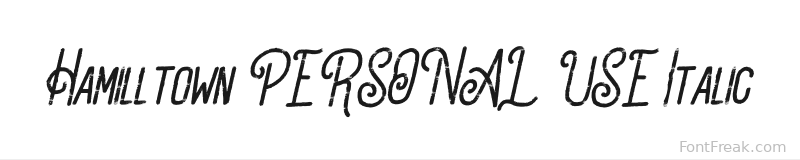
Hamilltown PERSONAL USE Italic
The Hamilltown PERSONAL USE Italic font by Mans Greback is a unique decorative typeface that falls within the script category. Its design features elegant, flowing letterforms that convey a sense of creativity and whimsy. The stroke weight is varied, offering a delightful contrast between thick and thin lines, which adds character and visual interest. The spacing between the characters is well-balanced, allowing for easy readability while maintaining a stylish flair. The font also incorporates decorative elements, such as curvy ligatures and playful swashes, enhancing its artistic appeal.
This font is ideal for a variety of specific use cases. It shines in wedding invitations, where its romantic style can beautifully convey heartfelt messages. Additionally, it works well for movie posters, lending a touch of drama and creativity to the titles. Restaurant menus can also benefit from the Hamilltown PERSONAL USE Italic font, giving a sophisticated yet approachable look that can entice diners. Furthermore, it serves as an excellent choice for personal branding materials, such as business cards or social media graphics, where a unique aesthetic can help individuals stand out.
The target audience for this font includes graphic designers, small business owners, and content creators who seek to enhance their projects with a distinctive typeface. The Hamilltown PERSONAL USE Italic font free download provides these users with a valuable tool to elevate their design work.
What sets this font apart is its ability to blend elegance with playfulness, making it versatile for various applications. Whether you're looking to add a touch of sophistication or a hint of fun, Hamilltown PERSONAL USE Italic offers the perfect solution for any creative endeavor.